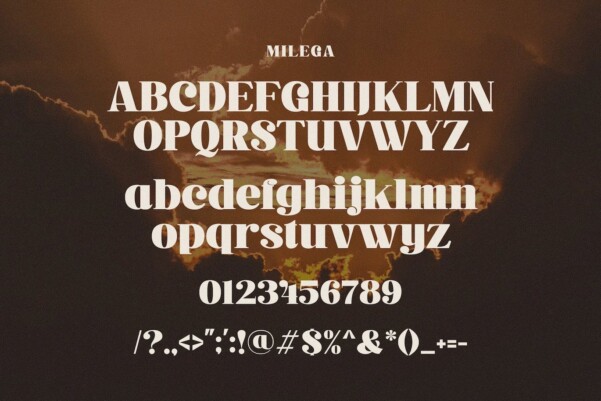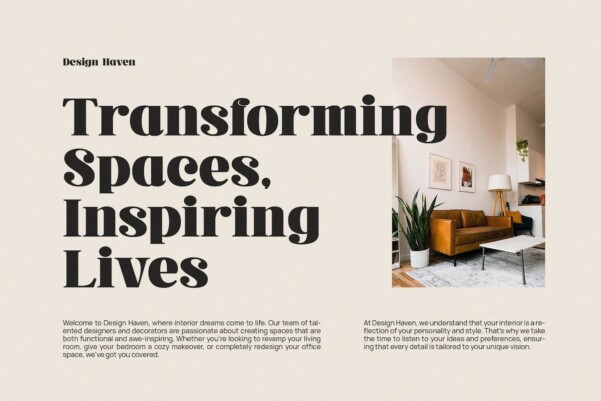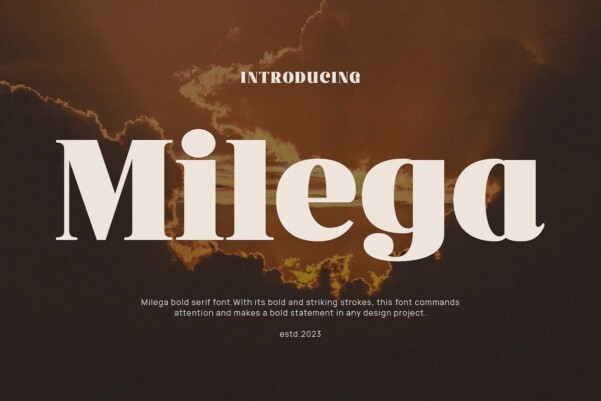
Milega Font
Milega Font, modern serif font with elegant style this is perfect for branding, logos, invitations, magazines, product packaging and more.